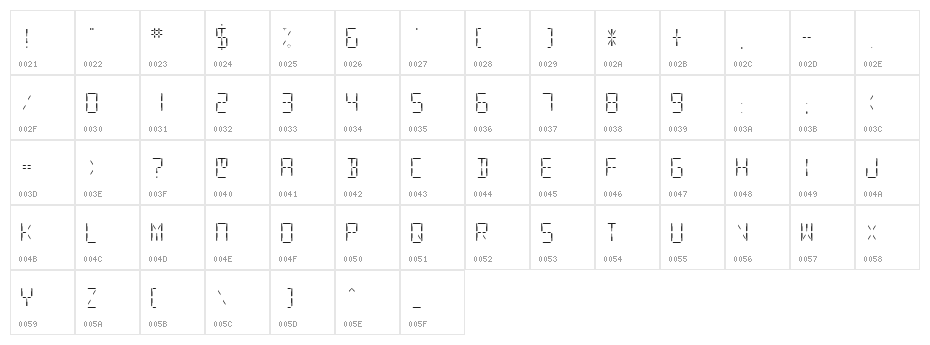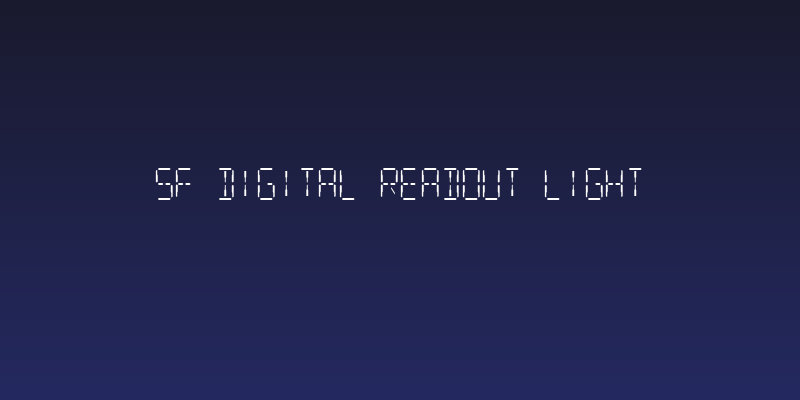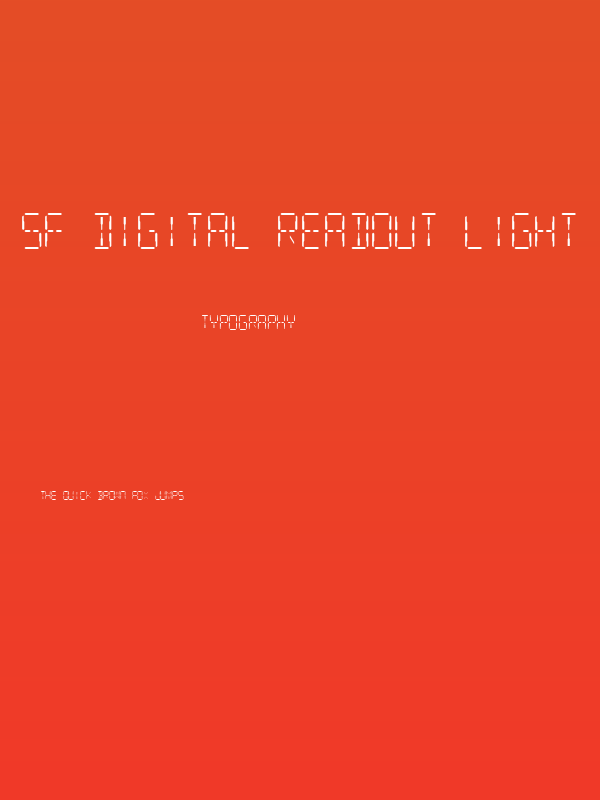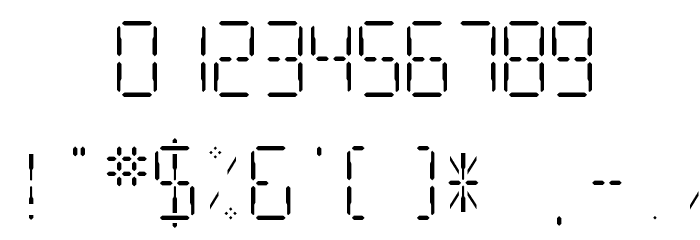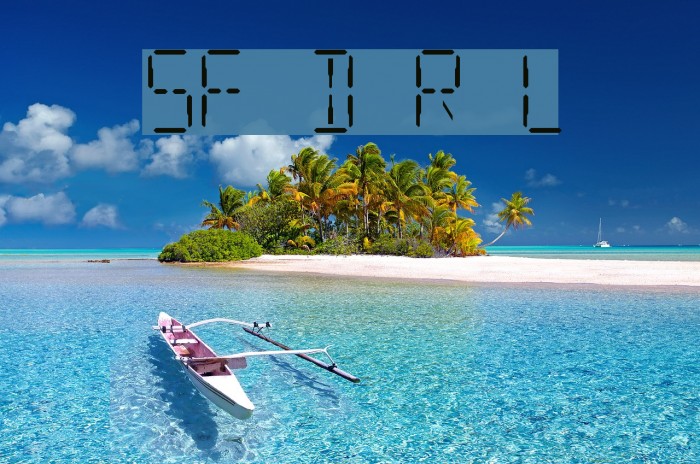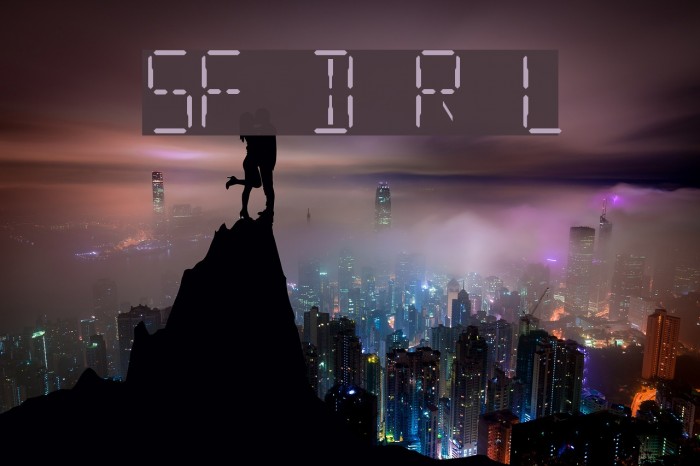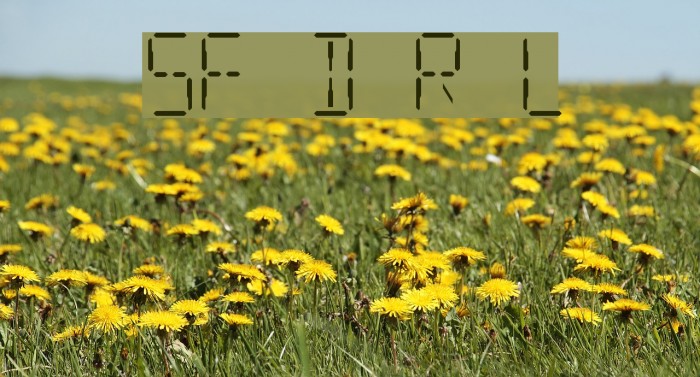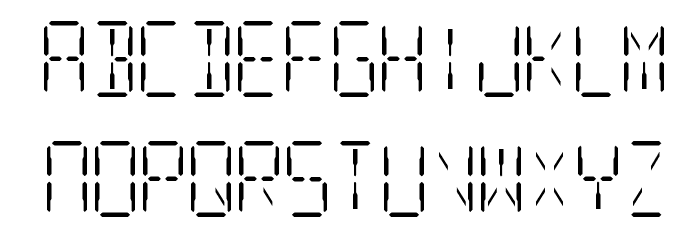
SF Digital Readout Light Font
SF Digital Readout Light Description
This font mimics the appearance of digital readouts commonly found on electronic devices such as calculators and digital clocks. Each character is composed of segmented lines, creating a distinct, technical aesthetic. The design is highly geometric, with straight edges and sharp angles, reflecting the utilitarian nature of digital displays. The uppercase and lowercase letters are uniform in style, maintaining the segmented look throughout. Numbers and special characters follow the same pattern, ensuring consistency across all glyphs. This font is particularly effective in conveying a sense of technology and precision.
| Use Case | Headlines, Logos, Digital Displays |
| Proposed Projects | Ideal for projects involving technology themes, digital interfaces, retro designs, or any application requiring a futuristic or technical look. |